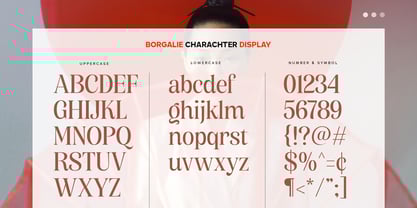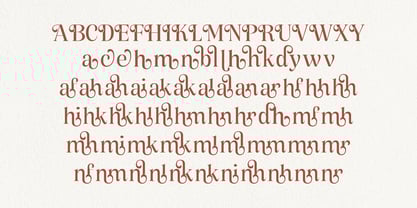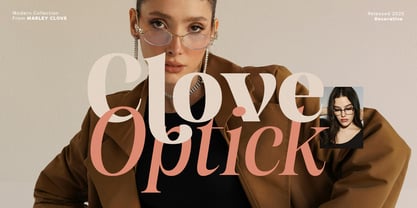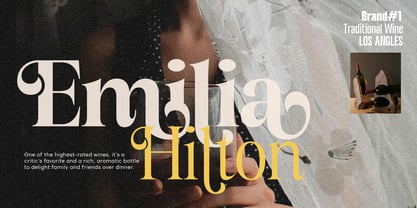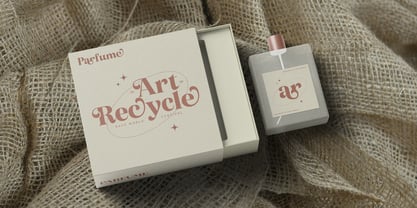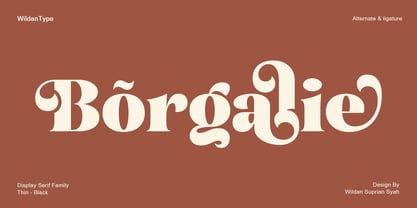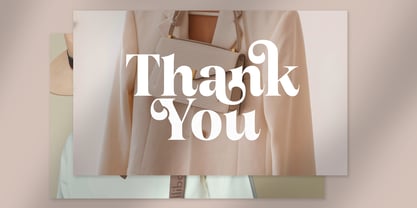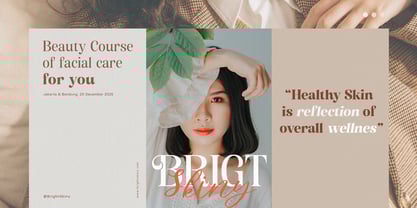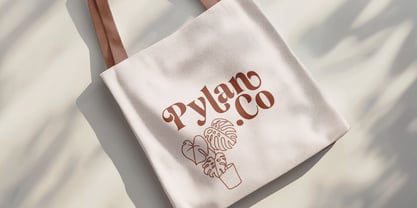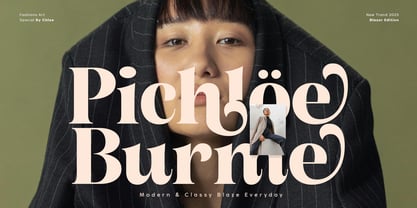
Borgalie
by Wildan Type
The Borgalie Font Family was designed by Wildan Suprian Syah and published by Wildan Type. Borgalie contains 18 styles and family package options.
Borgalie is a classic serif typeface with an elegant contemporary touch designed to provide a modern feel. Equipped with beautiful and stylish character alternatives, as well as unique ligatures, this font exudes a classy and graceful impression while still maintaining a modern classic essence.
Borgalie stands out with beautiful details and balanced proportions. It is ideal for designs that require a beautiful, luxurious, yet strong impression.Each character is meticulously crafted to reflect elegance and premium quality, ensuring your designs stand out in any setting.
Perfect for:
- Event Invitations: Develop stunning invitations for weddings, or exclusive events.
- High-end Products: Design packaging and marketing materials for premium products.
- Upscale Marketing: Elevate your marketing materials with a touch of luxury and style.
- Branding: Create a brand that radiates a contemporary and elegant impression.